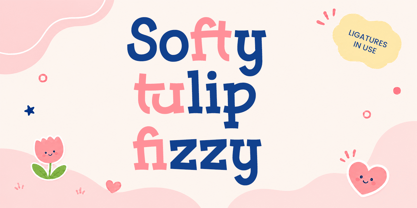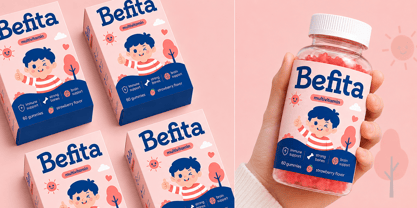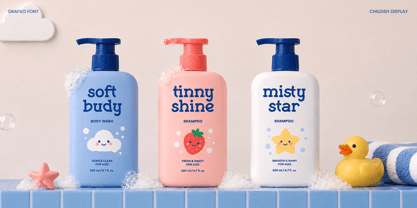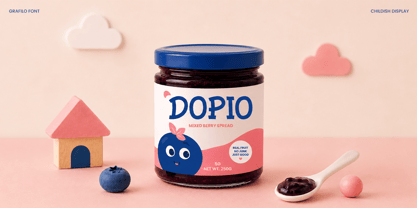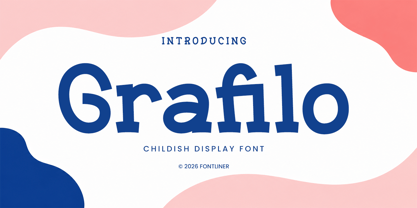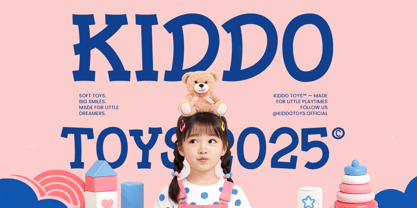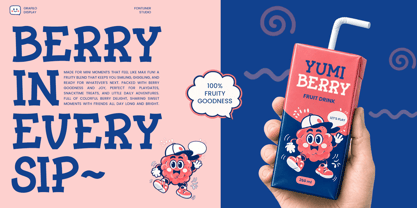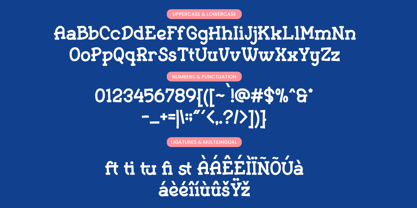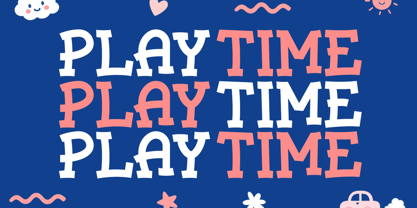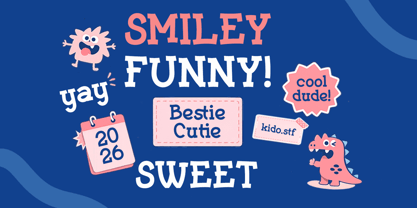
Grafilo
Grafilo is a cheerful childish display font designed to bring happiness, creativity, and playful energy into every project. Featuring chunky letterforms, soft curves, and adorable ligatures, Grafilo creates a friendly personality that instantly captures attention. Whether you're designing for children or simply want a joyful visual style, this font delivers a fun and memorable look.
Perfect for branding, packaging, toy products, children's books, educational materials, snack labels, baby products, posters, invitations, logos, social media graphics, YouTube thumbnails, apparel, stickers, greeting cards, and playful merchandise. Grafilo combines bold readability with charming character, making every headline feel warm, energetic, and inviting.
Its versatile style works beautifully across both print and digital projects. From colorful packaging to cute branding identities, Grafilo helps your designs stand out with a unique handcrafted appearance that's full of personality.
• Regular and Italic Style
• Stylistic Ligatures
• Uppercase & Lowercase
• Number, Symbol, & Punctuation
• Multi Language Support